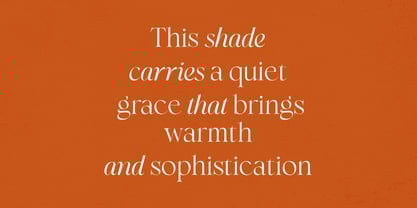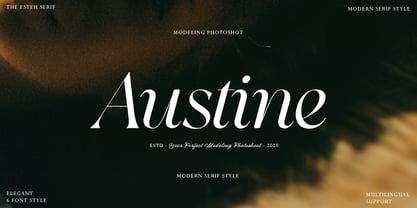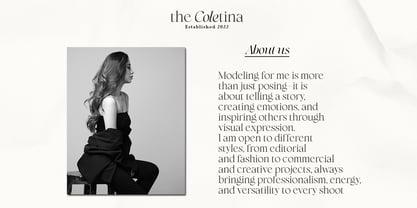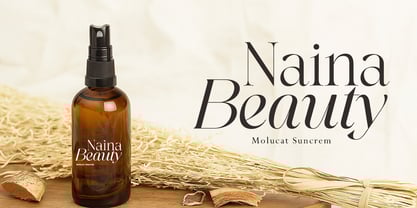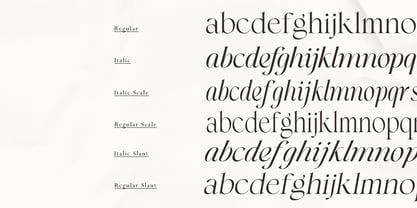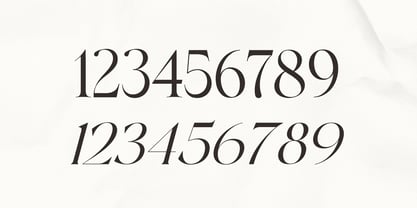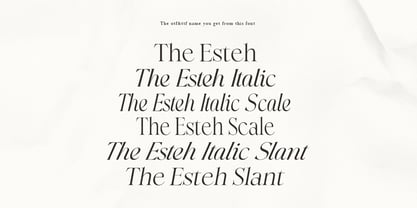
The Esteh Italic Slant
by Anaya Studio
The The Esteh Italic Slant Font Family was designed by Julizar Ismail and published by Anaya Studio. The Esteh Italic Slant contains 6 styles and family package options. More about this family
Esthe Serif is a refined typeface that blends modern elegance with timeless classic charm. Its graceful curves and sharp serif details create a perfect balance of sophistication and readability, making it ideal for projects that demand both beauty and professionalism. With 6 versatile styles included, Esthe Serif offers endless possibilities for branding, editorials, packaging, wedding invitations, and other creative works. Each letter is carefully designed to deliver a soft yet stylish impression, ensuring your designs stand out with a unique identity. More than just a font, Esthe Serif is a statement piece that elevates every project with its luxurious and artistic character
Designers: Julizar Ismail
Foundry: Anaya Studio